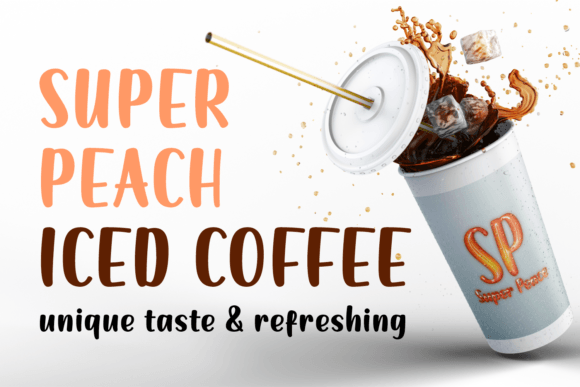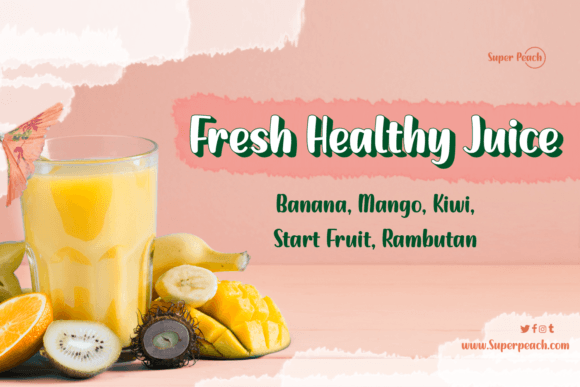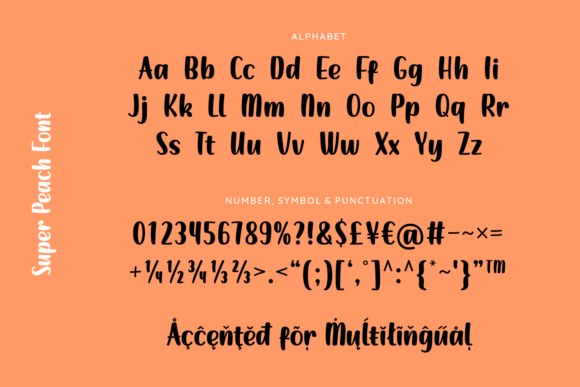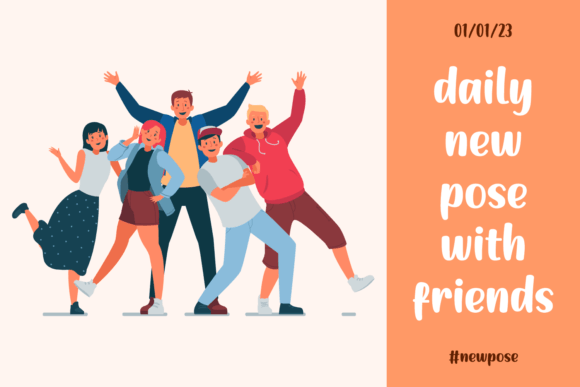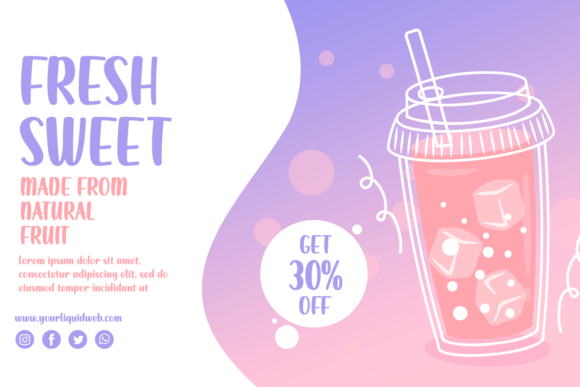
Super Peach Font
Cute Versatile Typeface for Friendly and Fun Designs
Are you looking for a typeface that’s both playful and functional? The cute versatile typeface Super Peach might be exactly what your next project needs. With its handwritten charm and approachable style, this font adds personality and warmth to any design — whether you’re working on packaging, digital art, or personal crafts.
Super Peach is here to help you create standout visuals with ease and fun.
Introducing Super Peach: Sweet, Stylish, and Flexible
Super Peach blends a casual handwritten feel with polished strokes that remain clean and readable. Its rounded shapes and soft flow make it feel friendly and approachable — ideal for designs that need a personal touch without sacrificing clarity.
Here are just a few perfect use cases for this cute versatile typeface:
• Product packaging and food labels
• Event invitations and flyers
• Social media content and blog headers
• Planners, journals, and printable templates
• Logos for lifestyle brands or Etsy shops
This flexibility makes Super Peach a solid choice for both beginners and experienced designers.
Why Choose Super Peach?
Designers love Super Peach for its personality, ease of use, and charm. Here’s why it’s such a popular choice:
• Adorable handwritten look with a polished finish
• Highly readable in both large and small sizes
• Works seamlessly across print and digital formats
Whether you’re building a product label or creating a custom invitation, this cute versatile typeface adds character and visual interest instantly.
Perfect for Designers, Creators, and Crafters
Super Peach isn’t just for professionals. Crafters and hobbyists will also find it a joy to work with. It’s especially useful for:
• Handmade product branding
• Printable art downloads and planners
• Stickers, labels, and packaging
• Kid-themed designs or educational content
• Blog and YouTube graphics
Because it feels both playful and neat, Super Peach strikes a balance that works in countless creative scenarios.
Super Peach is a delightful blend of charm and usability. With its cute versatile typeface style, it brings friendliness and flair to any project. Whether you’re designing for fun or business, this font helps your ideas come alive in the most cheerful way.